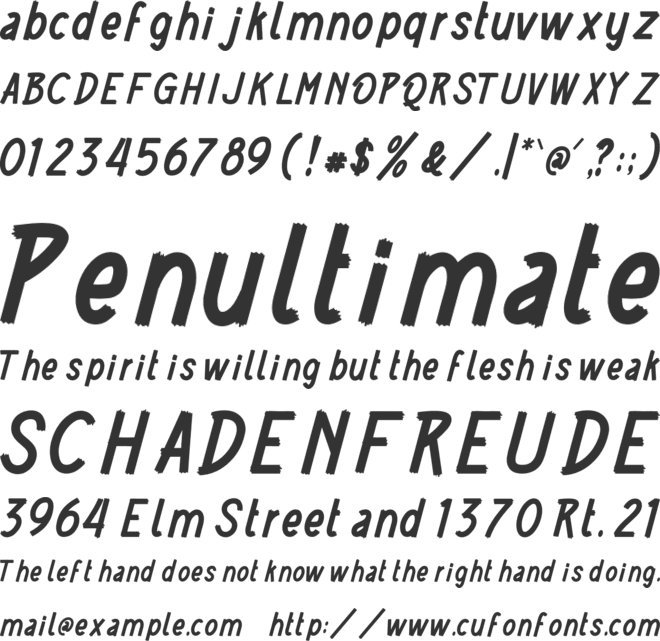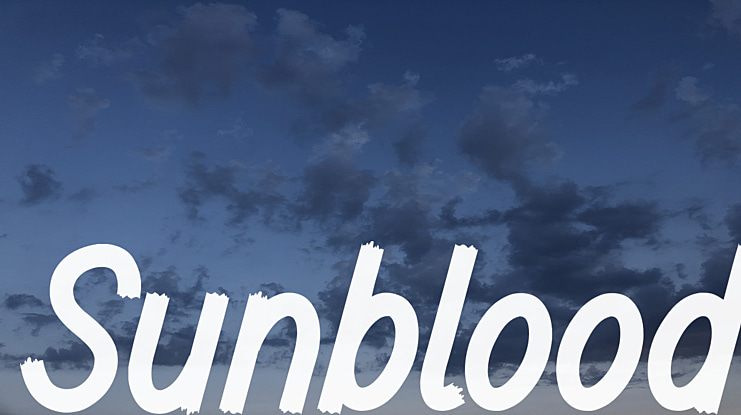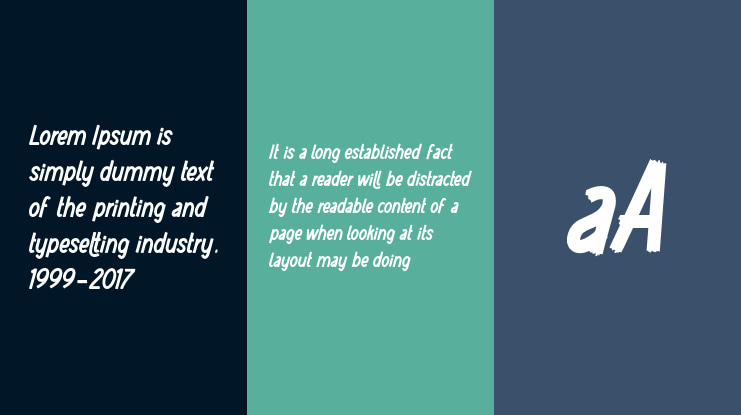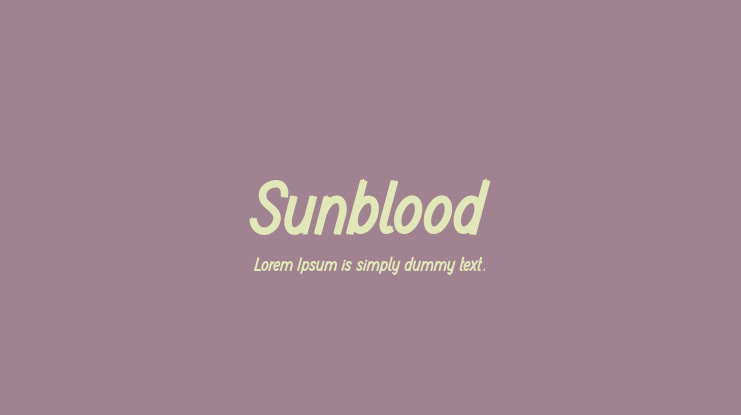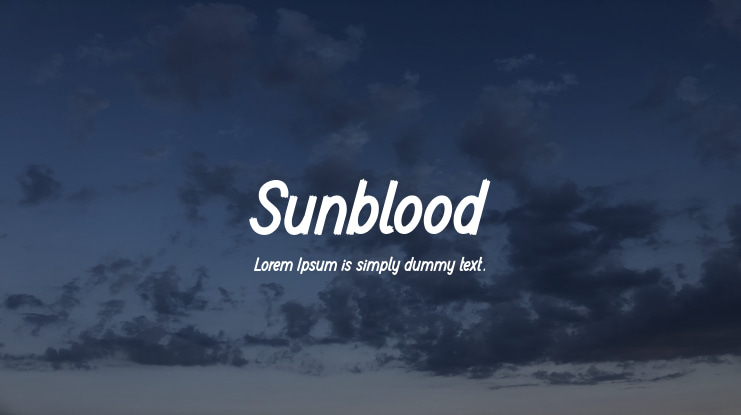
Sunblood Font
Introducing our new release, Sunblood A Modern Tetris Typeface. This typeset is perfect for brand logo, invitations, greeting card, or even any kind of project. With multilingual feature and style variations, this typeface would further enhance the aestethical aspect of your work.Click our website :https://displaytypefont.com/product/sunblood/